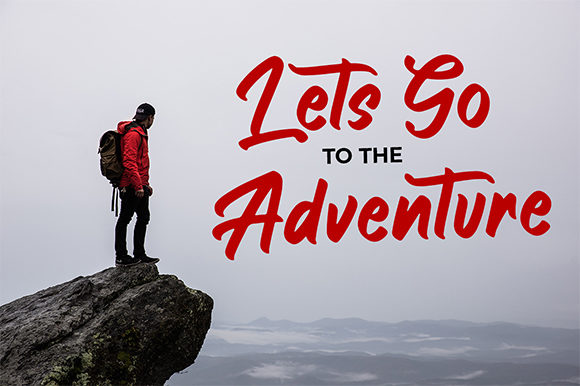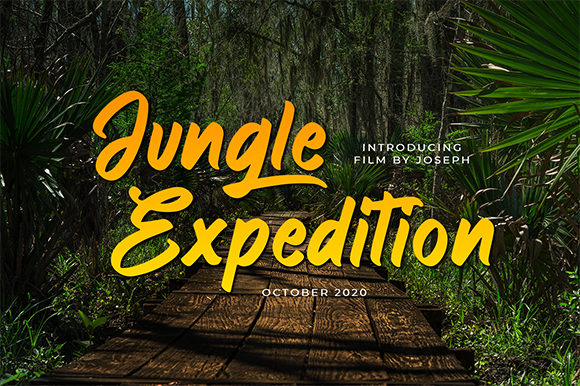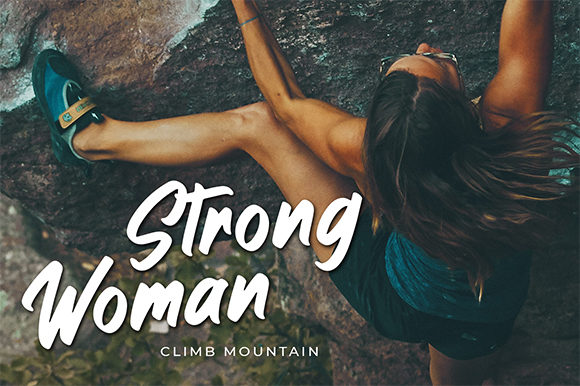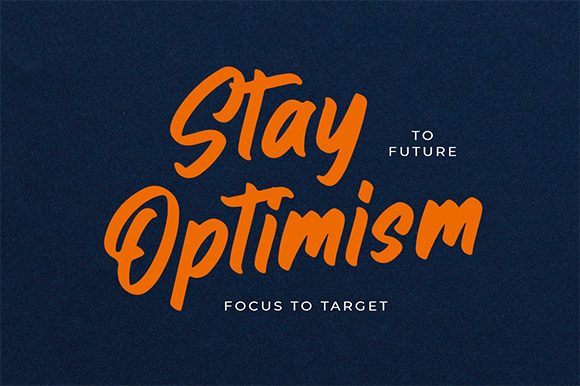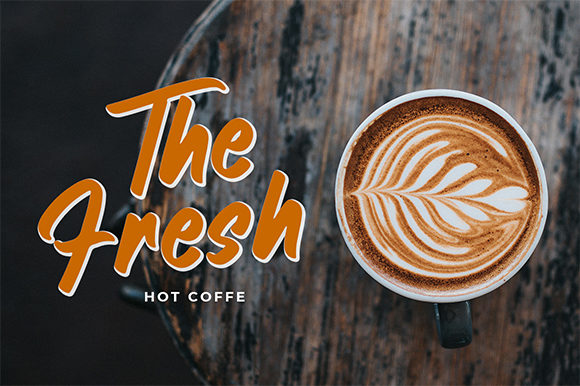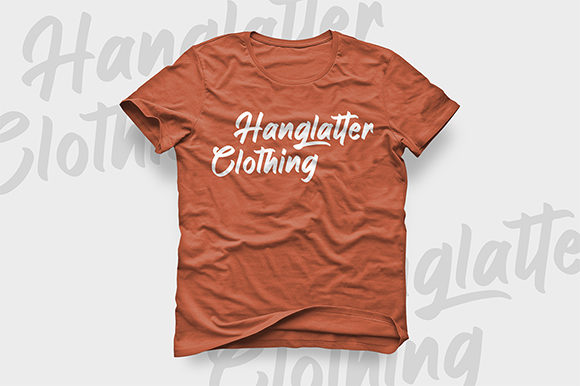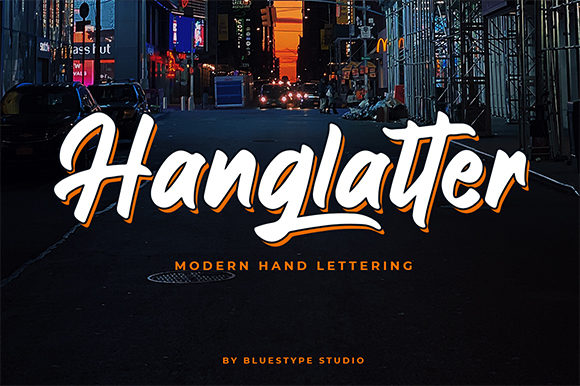
Introducing Hanglatter Font: A Modern Tribute to Classic Calligraphy
In the world of typography, few fonts have managed to capture the essence of classic calligraphy while infusing it with a modern twist. Hanglatter Font is one such remarkable typeface that has been turning heads with its adventurous style and elegant flair. In this article, we’ll explore what makes Hanglatter Font a standout choice for designers and crafters looking to add a touch of sophistication and whimsy to their projects.
The Inspiration Behind Hanglatter Font
Hanglatter Font draws its inspiration from the rich tradition of calligraphy, an art form that has been perfecting the art of beautiful handwriting for centuries. Calligraphy, with its flowing lines, intricate details, and expressive flair, has always been a source of fascination for designers and artists. Hanglatter Font takes these classic elements and breathes new life into them, resulting in a font that is both nostalgic and refreshingly modern.
Key Features of Hanglatter Font
So, what sets Hanglatter Font apart from other typefaces? Here are some of its key features:
- Adventurous Style: Hanglatter Font boasts an incredibly adventurous style that is perfect for designers looking to add a touch of excitement to their projects. Its bold, expressive lines and unique letterforms make it an eye-catching choice for headings, titles, and other display text.
- Modern Twist on Classic Calligraphy: While Hanglatter Font pays homage to traditional calligraphy, it also introduces a modern twist that sets it apart from more traditional typefaces. Its clean lines, elegant curves, and subtle imperfections make it a versatile choice for a wide range of design applications.
- Highly Legible: Despite its adventurous style, Hanglatter Font remains highly legible, making it suitable for use in body text as well as display text. Its clear, well-defined letterforms ensure that your message gets across with clarity and impact.
Use Cases for Hanglatter Font
Hanglatter Font’s versatility makes it suitable for a wide range of design applications, including:
- Branding and Logo Design: Hanglatter Font’s unique style and elegant flair make it an excellent choice for branding and logo design. Its bold, expressive lines and adventurous spirit can help your brand stand out in a crowded marketplace.
- Packaging Design: Whether you’re designing labels, packaging, or point-of-purchase displays, Hanglatter Font can add a touch of sophistication and whimsy to your designs.
- Stationery and Invitations: Hanglatter Font’s classic calligraphy roots make it an excellent choice for stationery, invitations, and other formal correspondence.
- Digital Design: Hanglatter Font’s clean lines and modern twist make it suitable for use in digital design, including websites, social media graphics, and mobile apps.
Hanglatter Font is a modern tribute to classic calligraphy that features an incredibly adventurous style. Its unique blend of traditional and modern elements makes it a versatile choice for designers and crafters looking to add a touch of sophistication and whimsy to their projects. With its highly legible letterforms, elegant flair, and bold, expressive lines, Hanglatter Font is sure to become a go-to choice for a wide range of design applications.